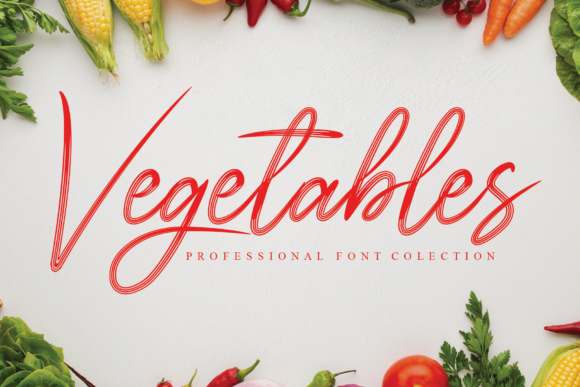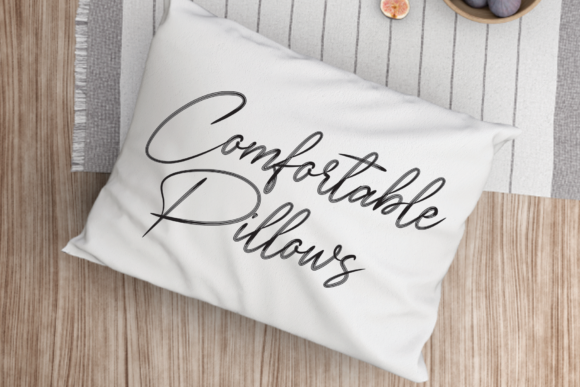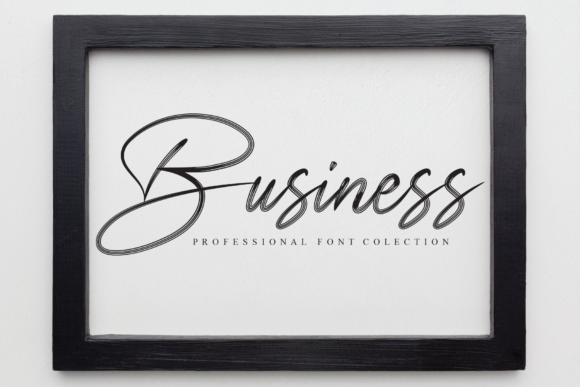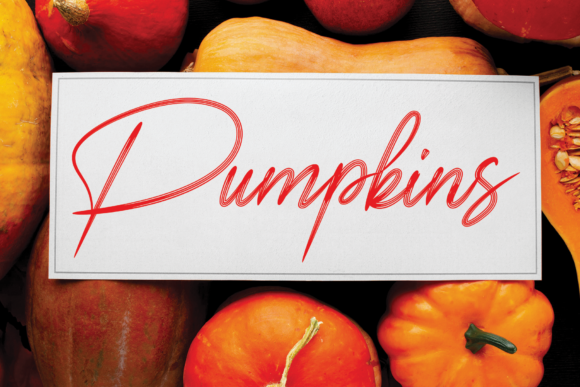
Signature Christmas Font
About Signature Christmas Font
Signature Christmas is an impeccable handwritten font that exudes elegance and delicacy, making it a perfect choice for a wide range of design purposes. Here are some creative ideas on how to use Signature Christmas in your projects:
1. Luxury Branding: Create stunning and sophisticated logos and branding materials for high-end or luxury brands using Signature Christmas.
2. Elegant Wedding Invitations: Design elegant and romantic wedding invitations that reflect the beauty of handwritten calligraphy with Signature Christmas.
3. Festive Headings: Use Signature Christmas for headings and titles in holiday-themed designs to add a touch of elegance and style.
4. T-Shirt Designs: Incorporate Signature Christmas into t-shirt designs to create trendy and stylish apparel with a personalized touch.
5. Letterhead and Stationery: Make your correspondence and business materials stand out with Signature Christmas for a professional and elegant touch.
6. Signage and Labels: Use Signature Christmas for signage, labels, and packaging to give products a sophisticated and refined look.
7. Magazine and Newsletters: Design magazine covers and newsletters with a touch of elegance using Signature Christmas for headings and titles.
8. Posters and Flyers: Create eye-catching posters and flyers with Signature Christmas for a distinct and artistic look.
9. Holiday Cards: Design beautiful holiday cards using Signature Christmas to convey warm wishes and seasonal cheer.
10. Social Media Graphics: Enhance your social media posts with stylish and elegant graphics using Signature Christmas for captions and quotes.
In summary, Signature Christmas is an impeccable handwritten font that exudes elegance and delicacy, making it an ideal choice for various design purposes. Whether it’s luxury branding, wedding invitations, or holiday-themed designs, Signature Christmas adds a touch of sophistication and style to any project. Let your creativity flow and explore the versatility of Signature Christmas in creating stunning and impactful designs.